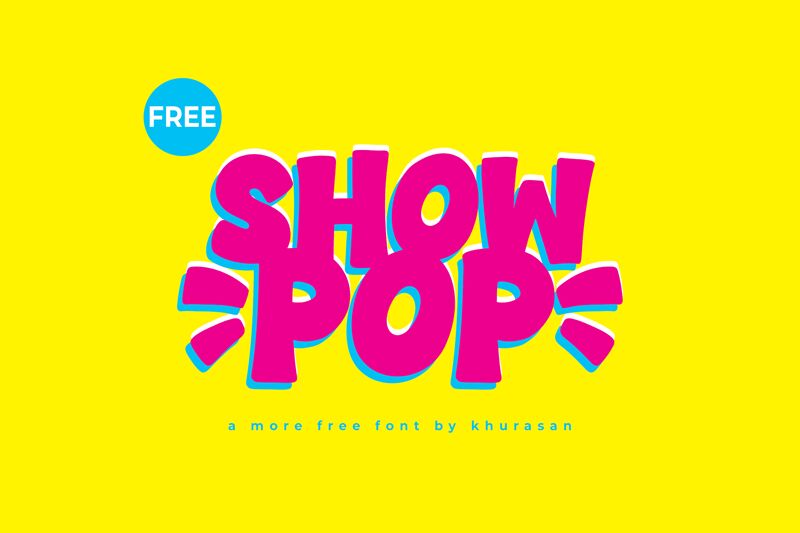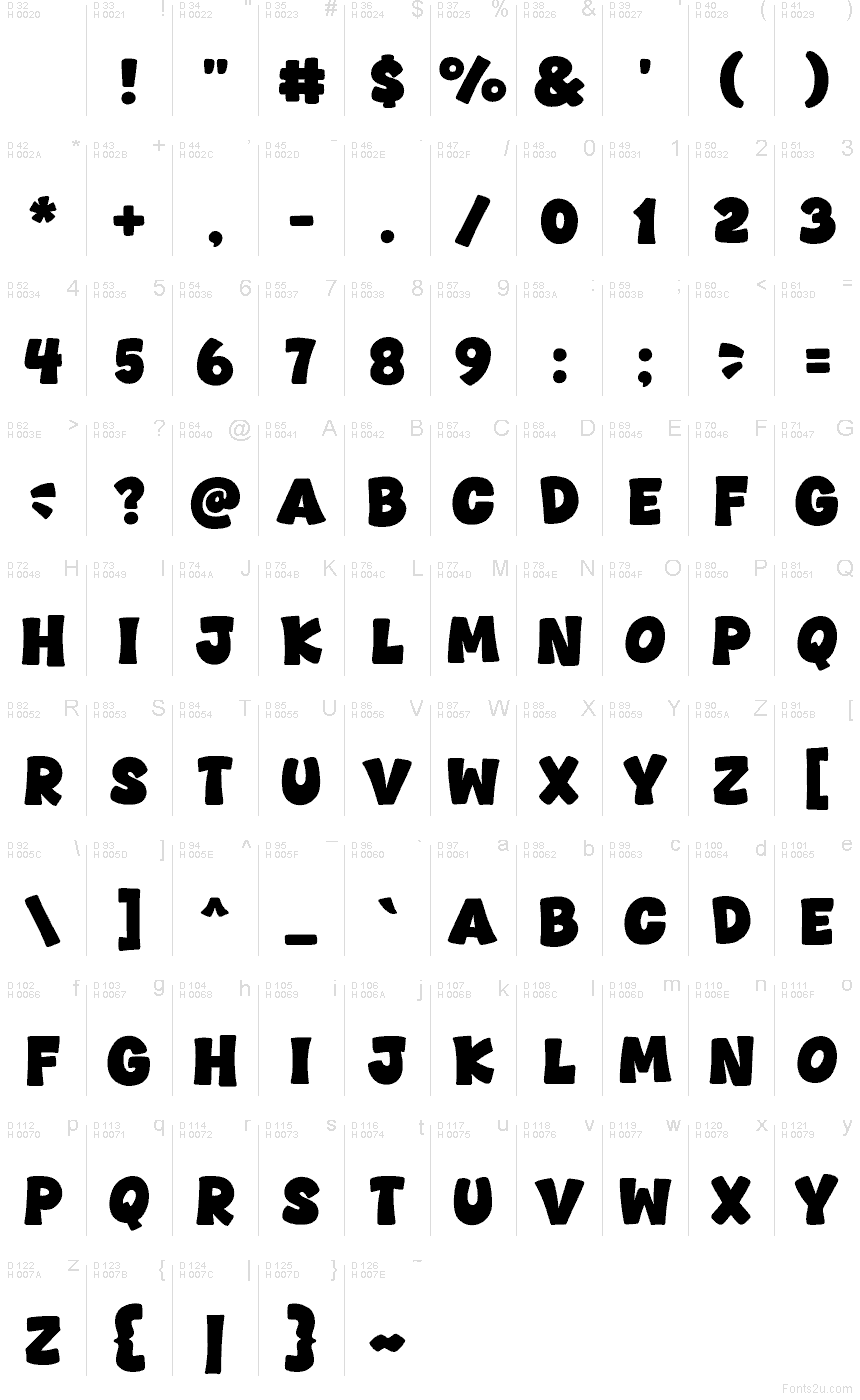
Showpop font by Khurasan is a free cartoon display typeface with big, inky letterforms that feel like they’ve been puffed up with air. The chunky shapes, tight rhythm, and slightly uneven outlines give it a hand-cut, poster-style energy that jumps off the page. It’s bold enough to read at a glance, but the soft curves keep everything friendly and fun rather than shouty.
Using Showpop, you can bring loud, bouncy character to kids’ book covers, birthday invitations, party posters, snack or toy packaging, YouTube thumbnails, and playful branding. This free font thrives at large sizes where its thick, inky curves can really show. For a simple combo, pair Showpop for headings with a clean rounded sans serif for body text, letting the bubbly title do all the talking.